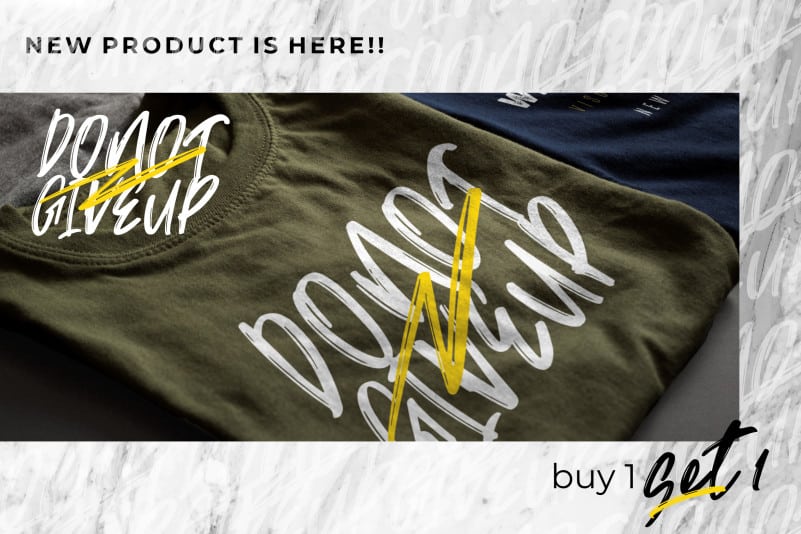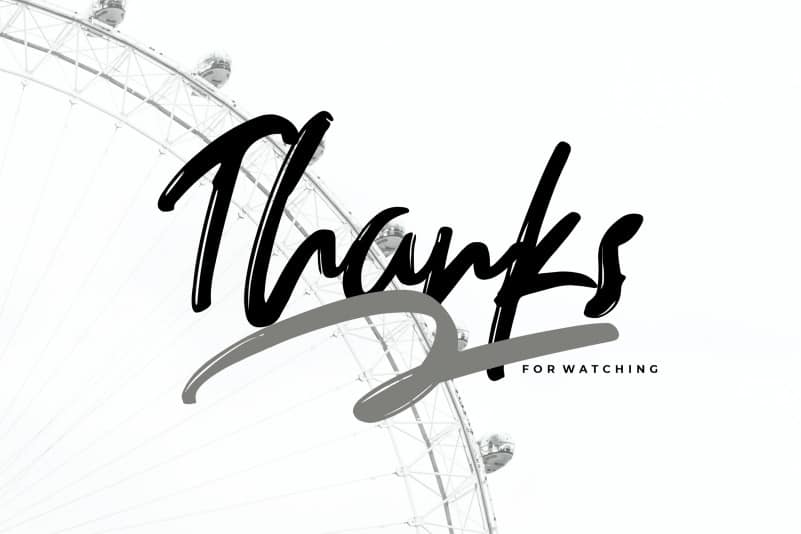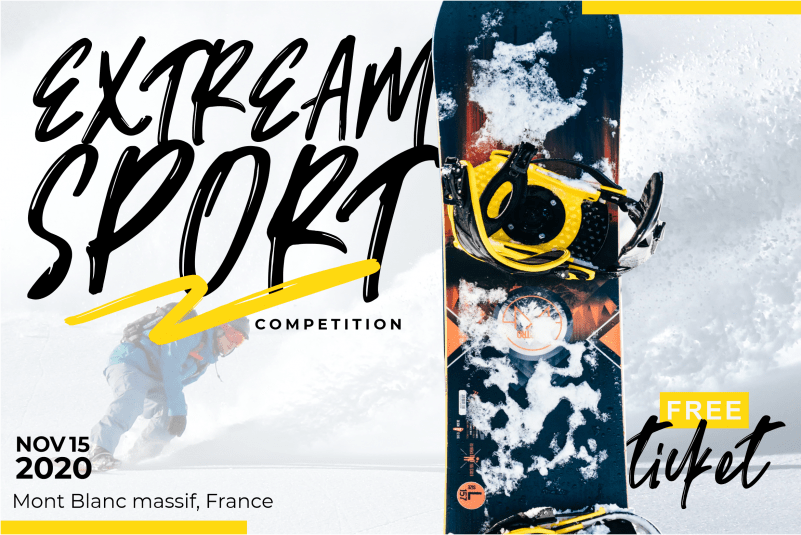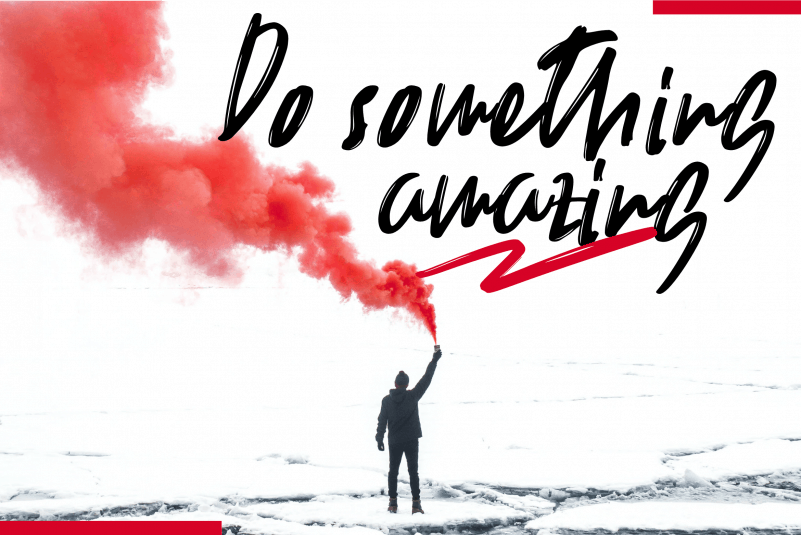
Trackers Brush Font
Trackers Brush Font is natural brush handwriting. Trackers with a detailed and texture, slightly thick and natural like a hand stroke. Trackers is perfect for using a magazine, flayer, brand name, someone’s name.
This font can be used for branding and logos, wedding designs, social media posts, advertisements, business cards, clothing products, quotes, magazine covers, labels, photography, watermarks, invitations, stationery, and any project that requires handwriting with subtle tastes.